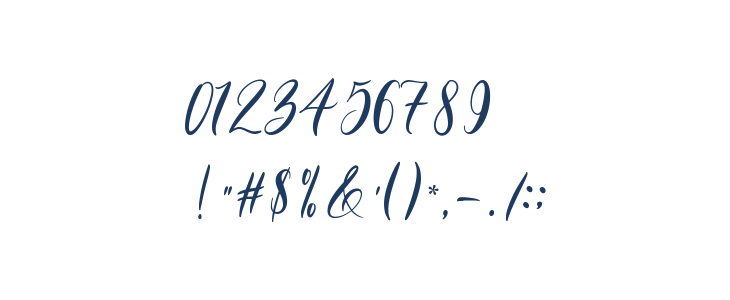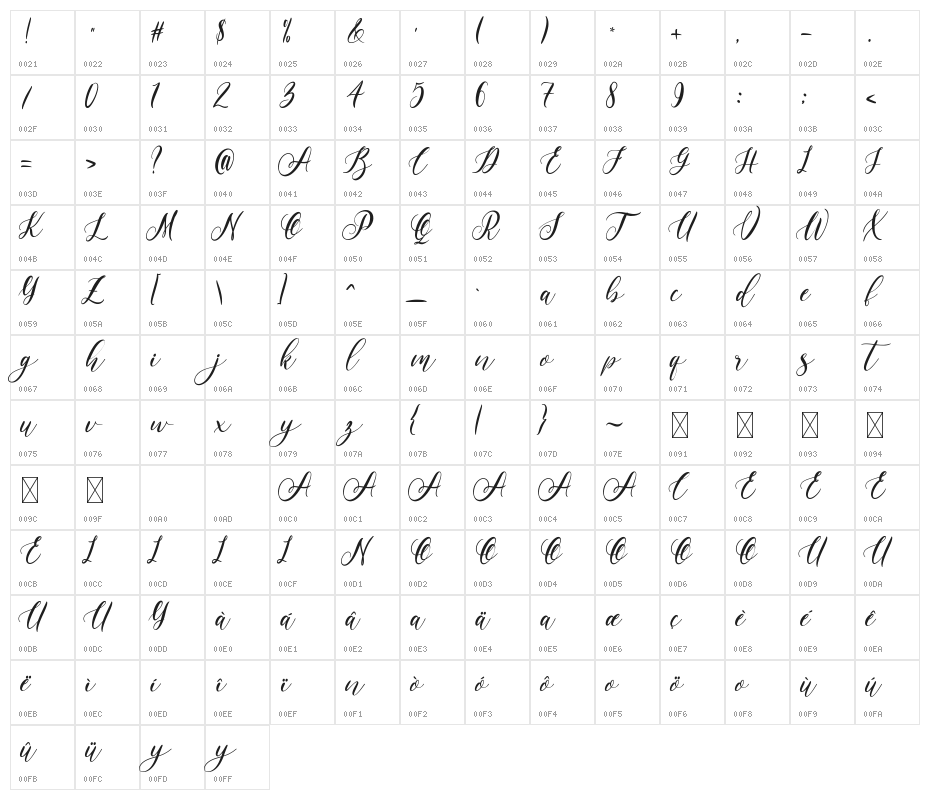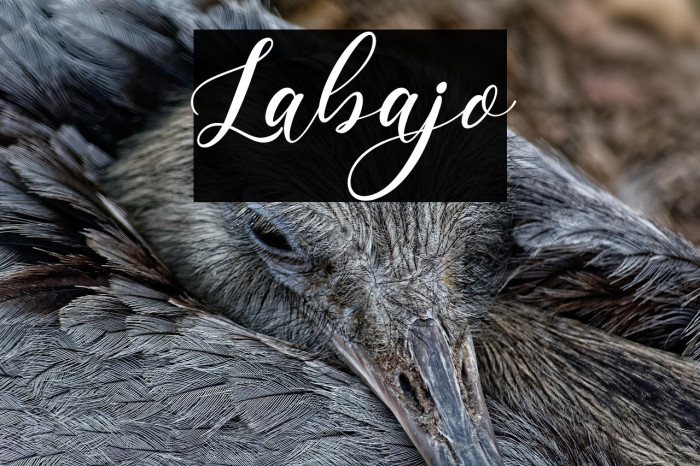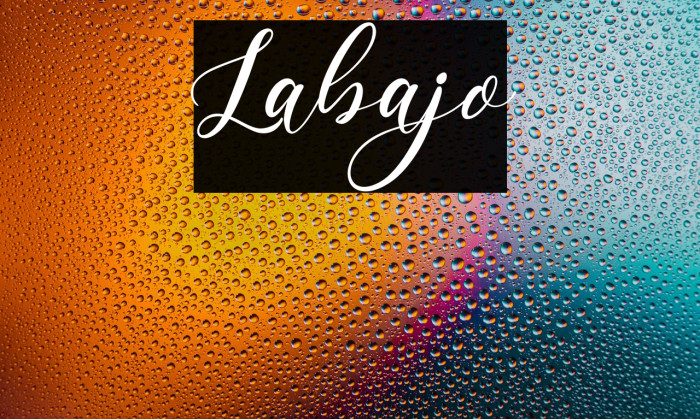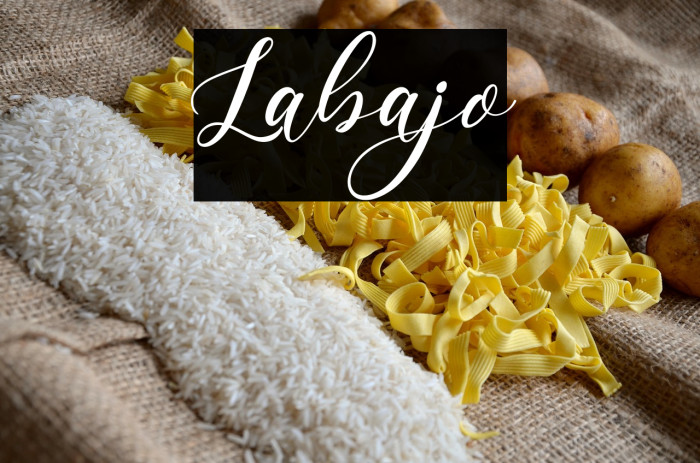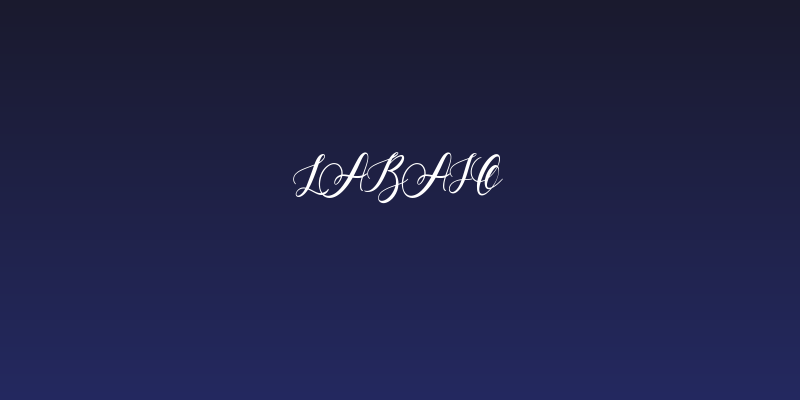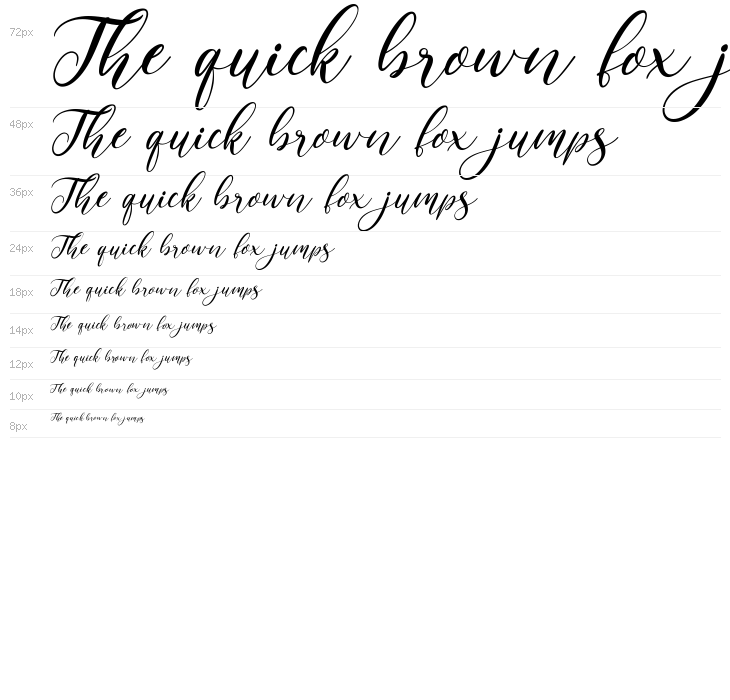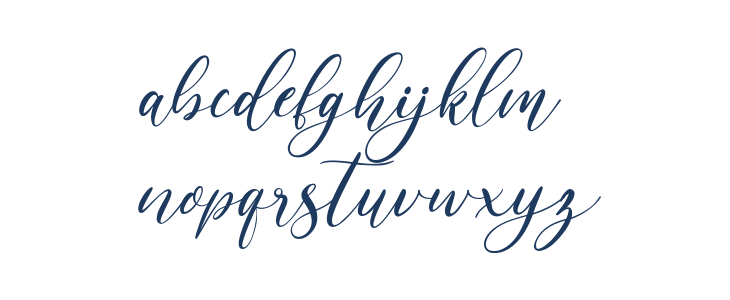
Labajo Font
Labajo Description
This elegant script font features flowing, interconnected letters with a classic and sophisticated appearance. The uppercase characters are ornate, with sweeping curves and flourishes that add a touch of luxury and refinement. The lowercase letters maintain a graceful continuity, making the text appear as though it was handwritten with a calligraphy pen. The numbers and special characters are designed to complement the overall style, ensuring consistency across all elements. This font exudes a sense of elegance and is perfect for projects that require a touch of class and sophistication.
| Overall Style | Classic |
| Use Case | Logos, Invitations, Branding |
| Proposed Projects | Ideal for wedding invitations, elegant branding, luxury product packaging, and formal event materials. |